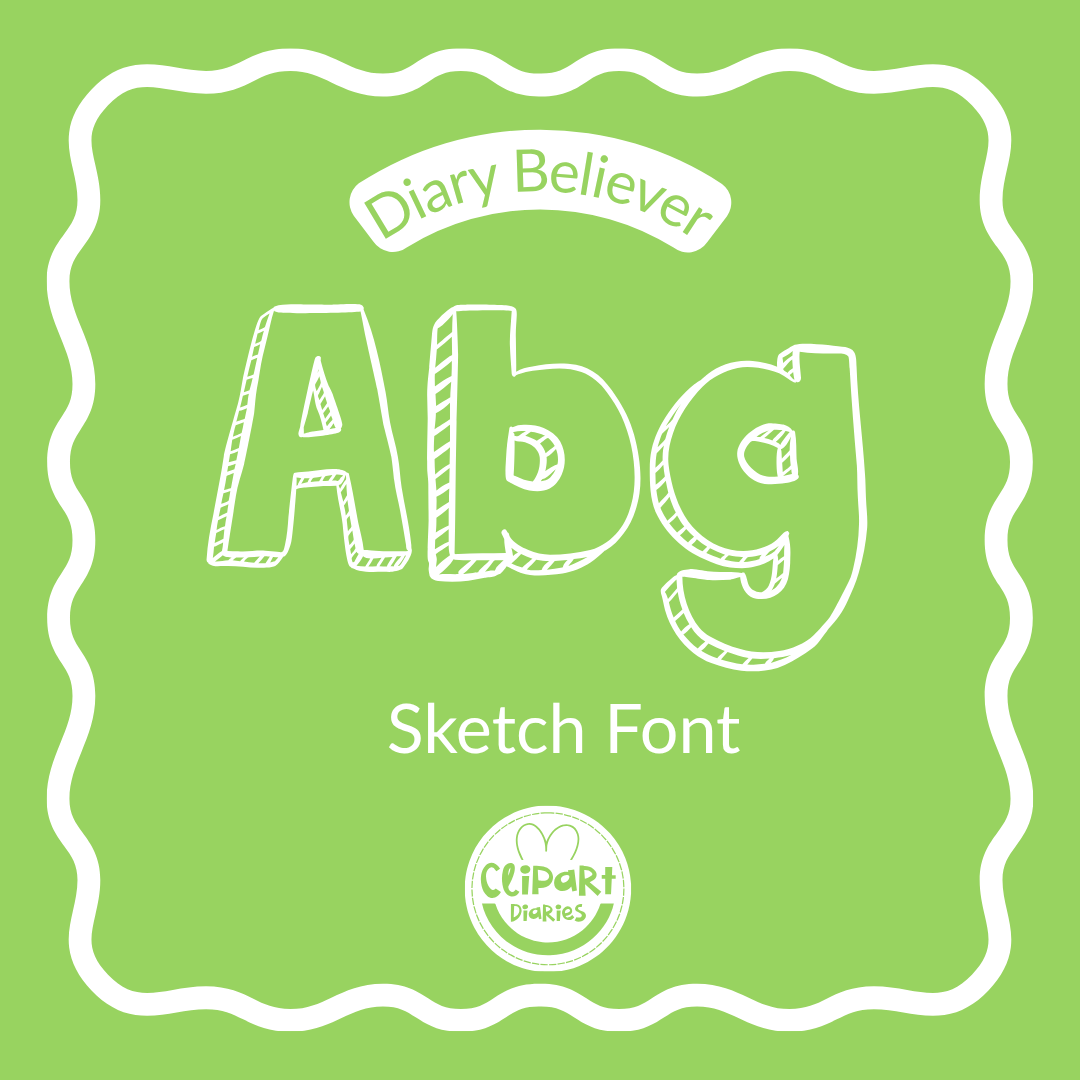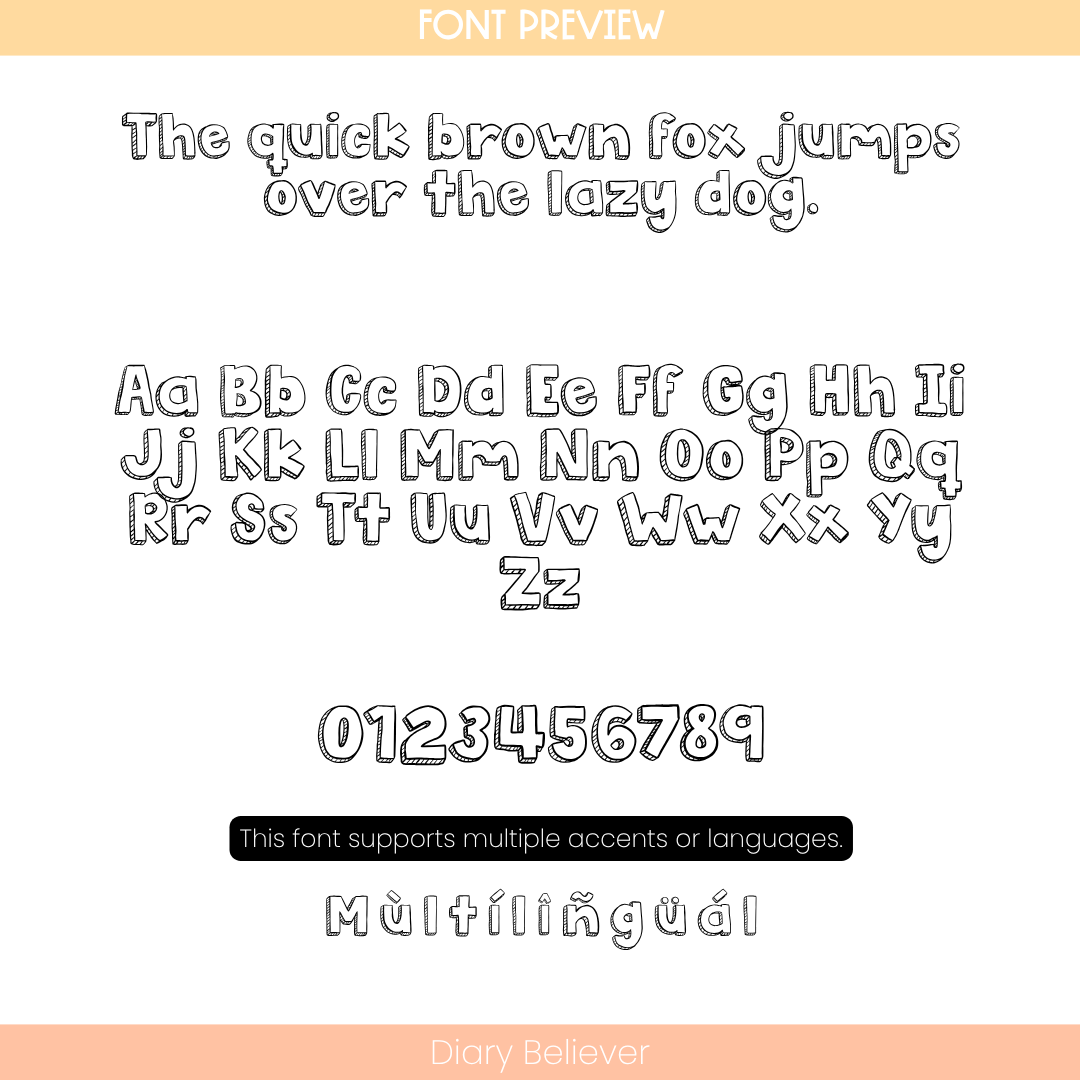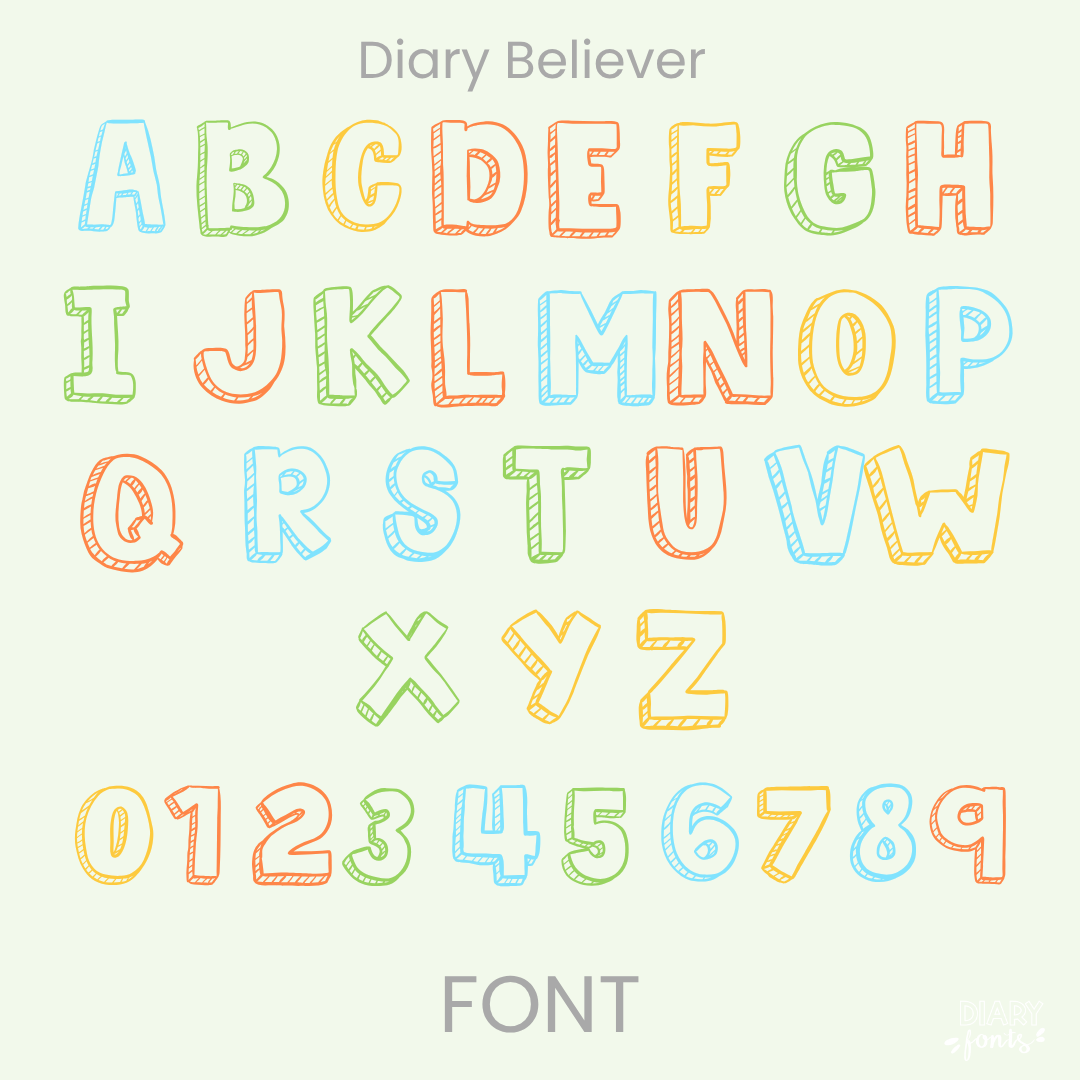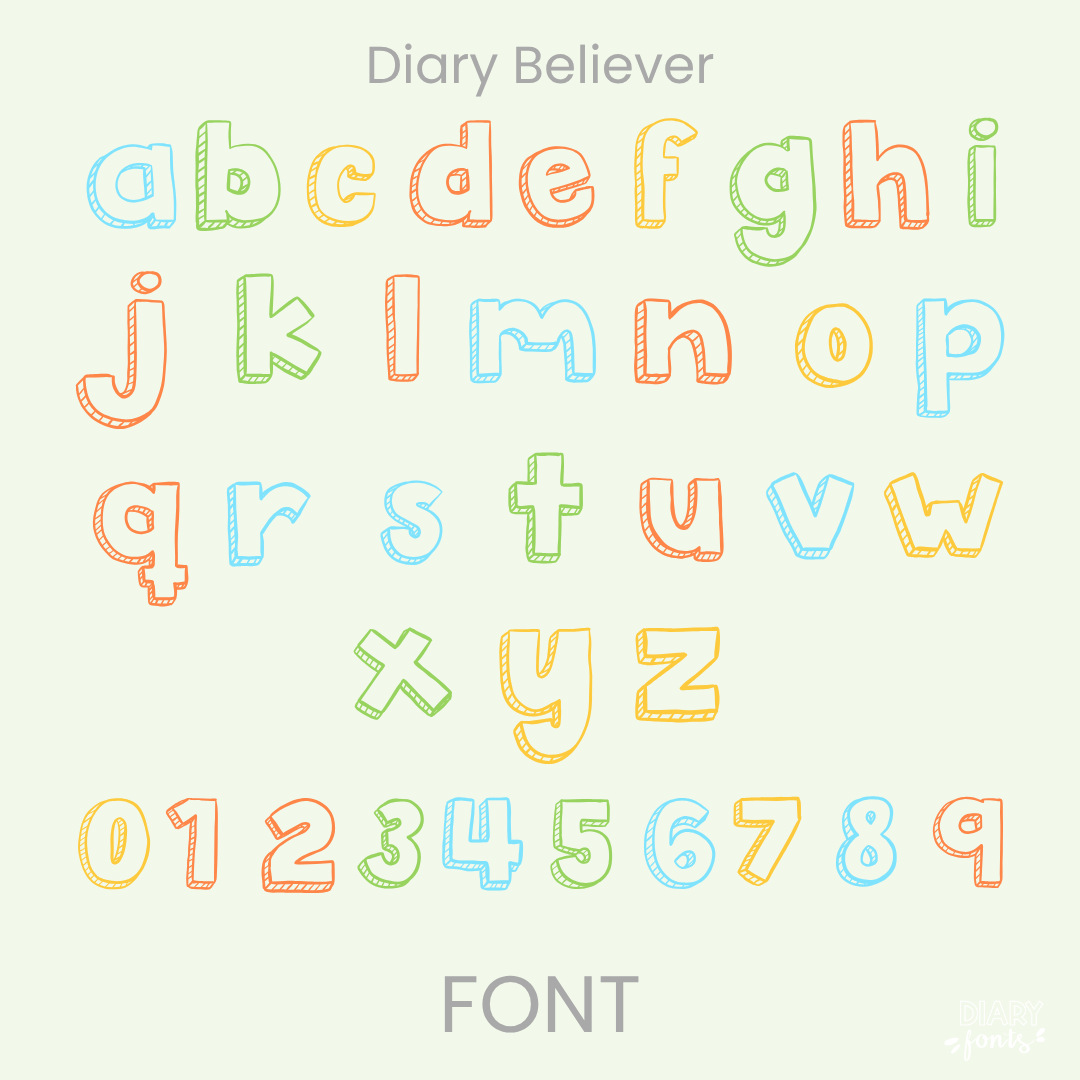
Add a hand-drawn, artistic flair to your projects with Diary Believer, a distinctive sketch font that perfectly captures a rustic and informal aesthetic. This comprehensive typeface includes uppercase and lowercase alphabets, numbers 0–9, and multi-language support for various accents, making it a versatile choice for global educational content. It is specifically optimized for seamless compatibility with Canva, MS Office, and Adobe Apps, as well as iPad-favorite tools like GoodNotes and Procreate. Licensed for both personal and commercial use, Diary Believer is the ideal resource for teachers and designers looking to create eye-catching classroom decor, engaging worksheets, or personalized digital planners with a “sketched” look.